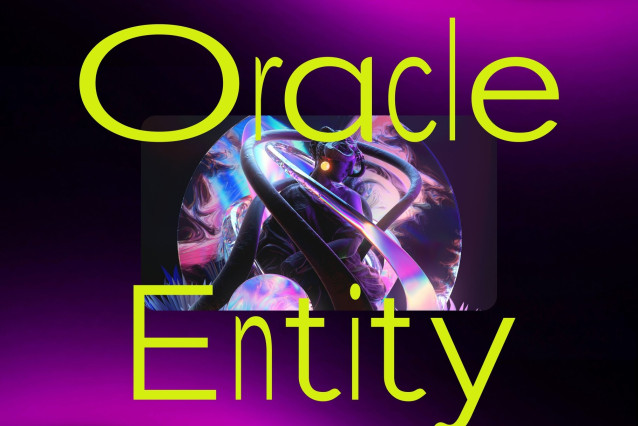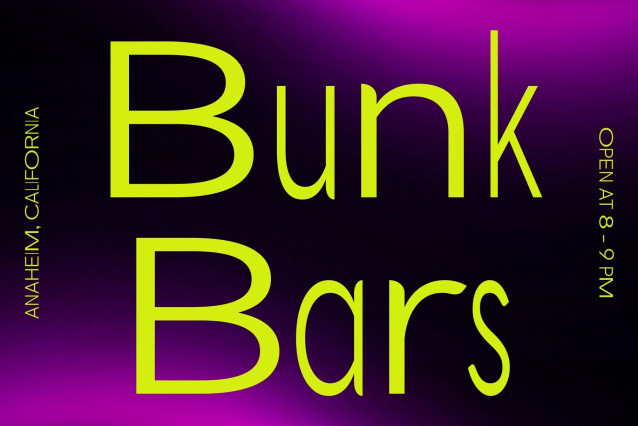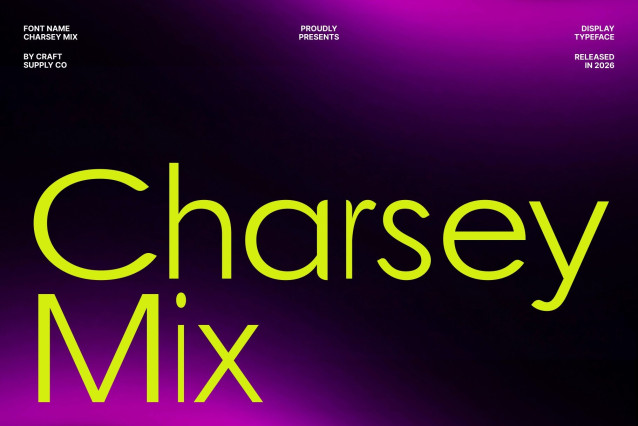
Charsey Mix Font
Charsey Mix – Modern Sans Serif Font: Clean Precision with Contemporary Confidence
Modern Sans Serif with Mixed Style Character
This is a modern sans serif font designed to deliver simplicity, clarity, and a polished professional tone. Built with clean lines and balanced proportions, this typeface introduces a distinctive mixed-style concept that adds subtle contrast and visual rhythm.
A Balanced Blend of Thin and Regular Letterforms
The defining feature of this font lies in its creative fusion of thin and regular characters. This thoughtful combination creates a smooth typographic hierarchy and a dynamic flow that enhances readability while adding personality. The contrast between weights keeps layouts visually engaging without disrupting the clean and minimal aesthetic.